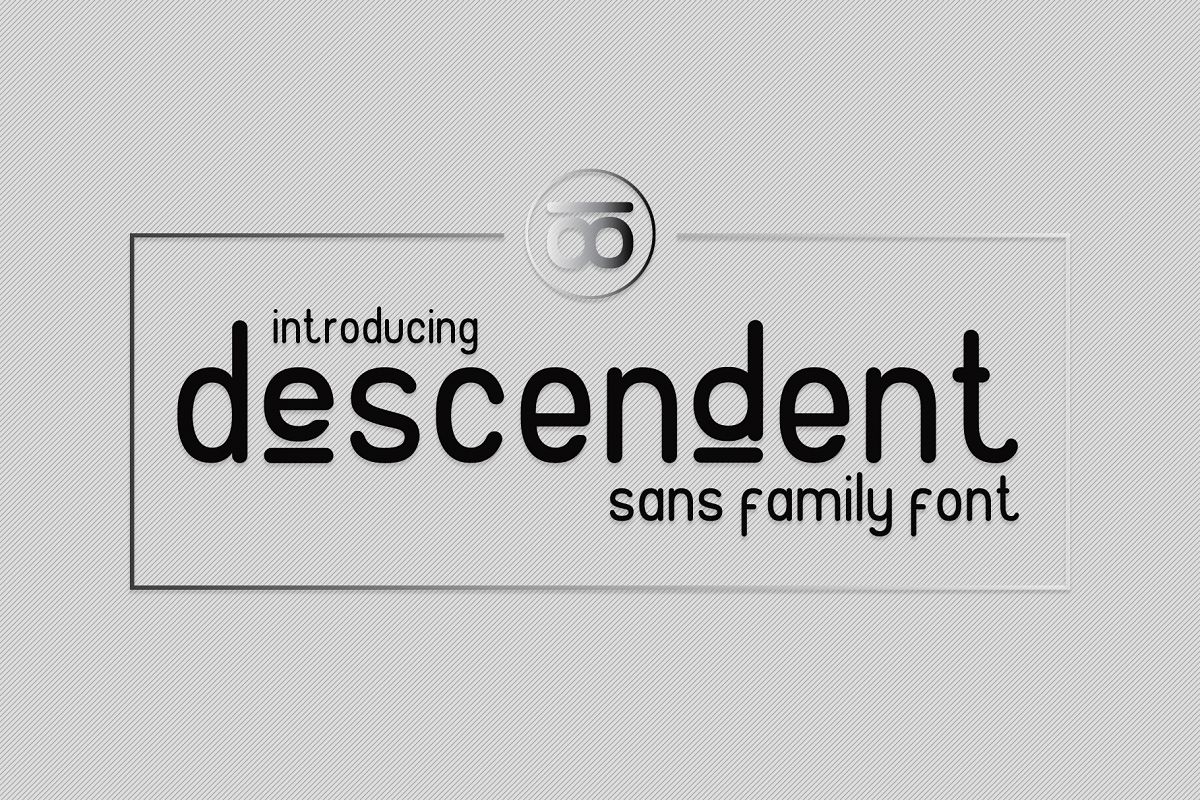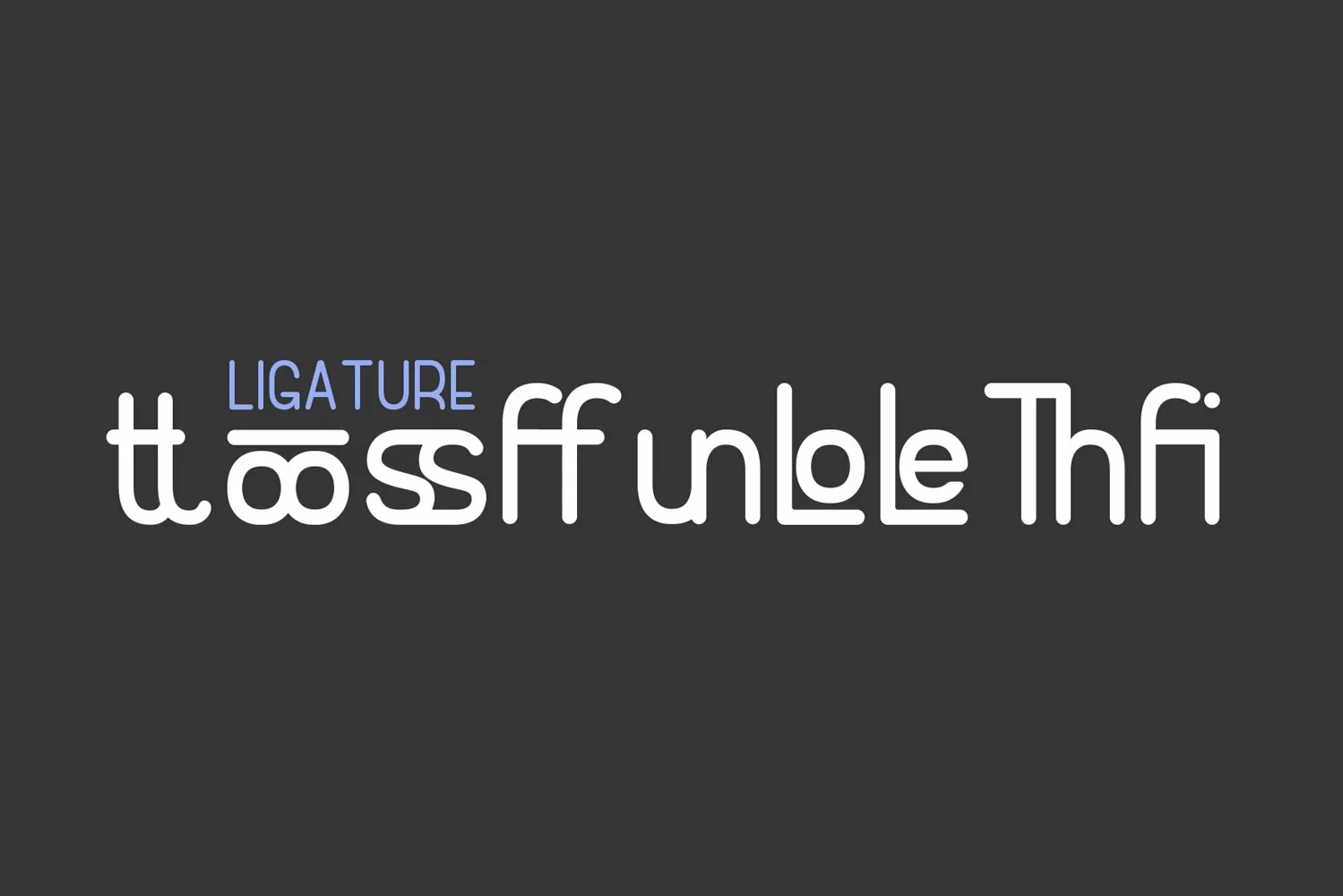
-- Powerful / Elegant / Modern --
Descendent is a sans font family and sophisticated sans serif. Inspired by famous product logo and i try to combine it with a modern concept. it's perfect for you to show your design or product in professional way.
Descendent works great in any branding, logos, magazines, films, poster, flyer, sign board.
- Descendent ligature